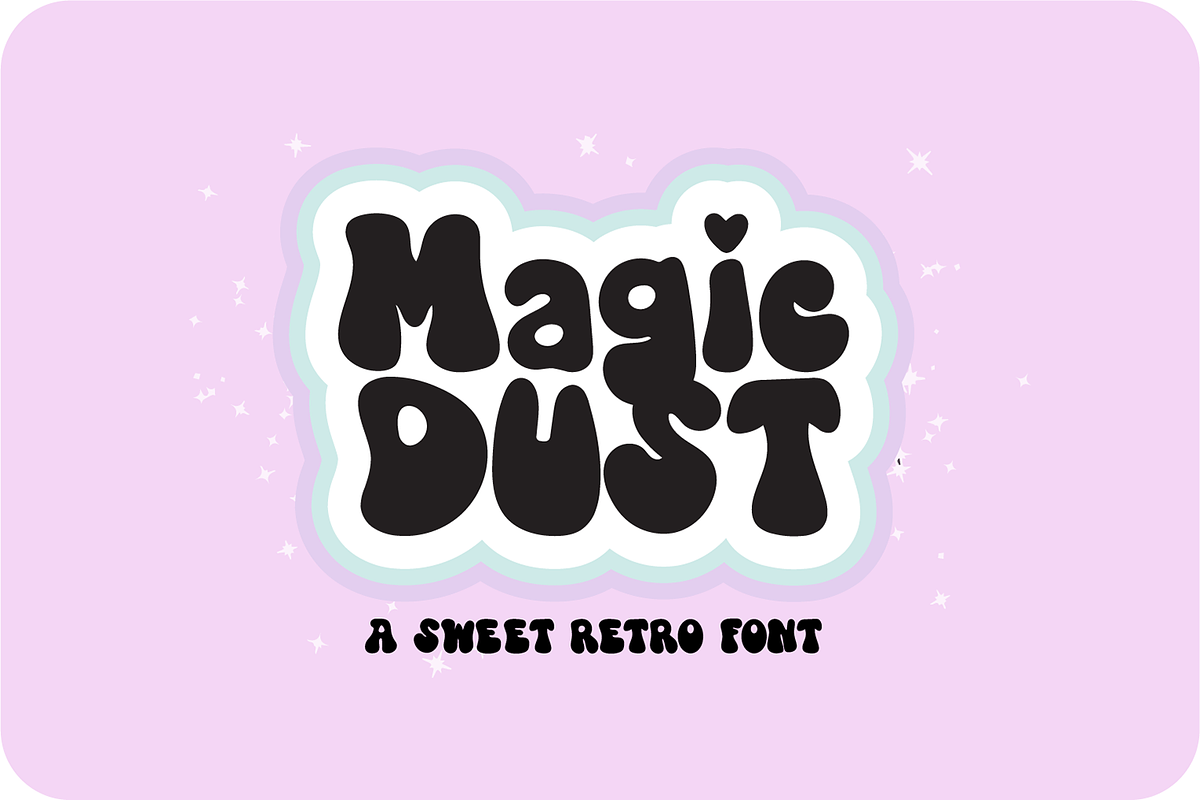
MAGIC DUST Bubble Retro Font Free Download
MAGIC DUST – Bubble Retro Font Free Download
Please note that you must purchase this font for commercial use. You can download MAGIC DUST – Bubble Retro Font for free, strictly for personal testing purposes only. Magic Dust is a fun, playful bubble font with a retro twist, capturing the essence of the 70s and 80s nostalgia. With rounded, inflated letterforms and a joyful vibe, MAGIC DUST Bubble Retro Font Free Download is perfect for vintage-themed designs, posters, t-shirt graphics, event flyers, social media content, and branding that needs a pop of retro energy.
This bubbly font brings a cheerful, eye-catching vibe to any project with its bold yet lighthearted feel. It includes uppercase letters, numerals, punctuation, and multilingual support for global use.
Whether you're designing a retro-inspired logo, fun posters, or vibrant social media posts, MAGIC DUST adds a nostalgic touch that’s guaranteed to bring attention.